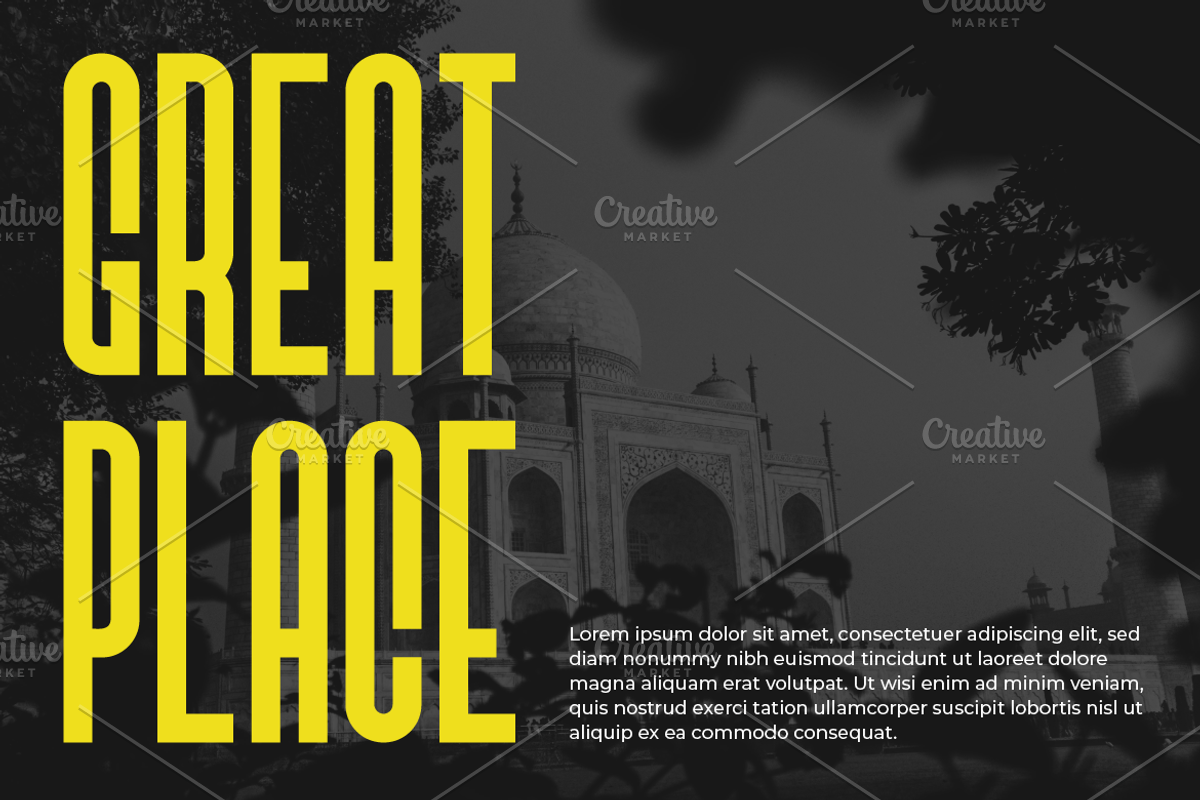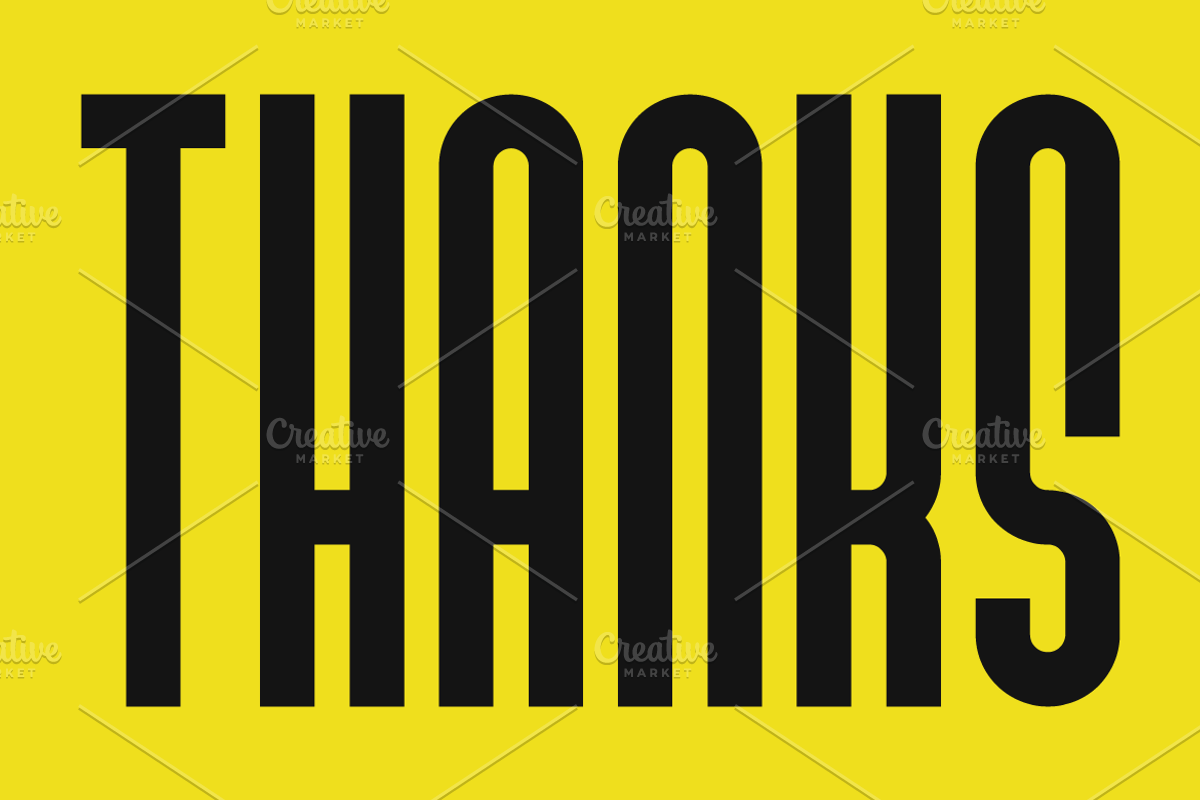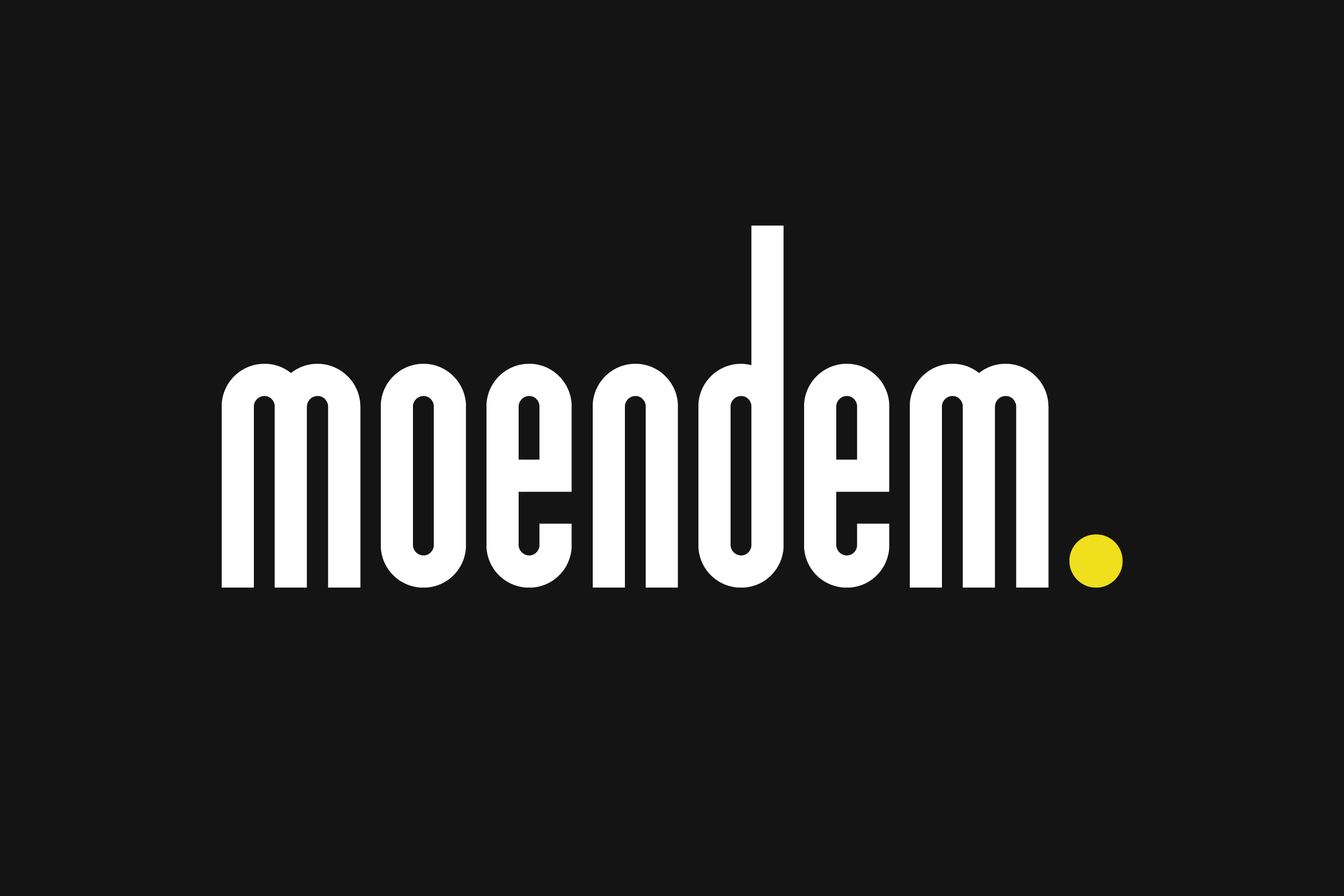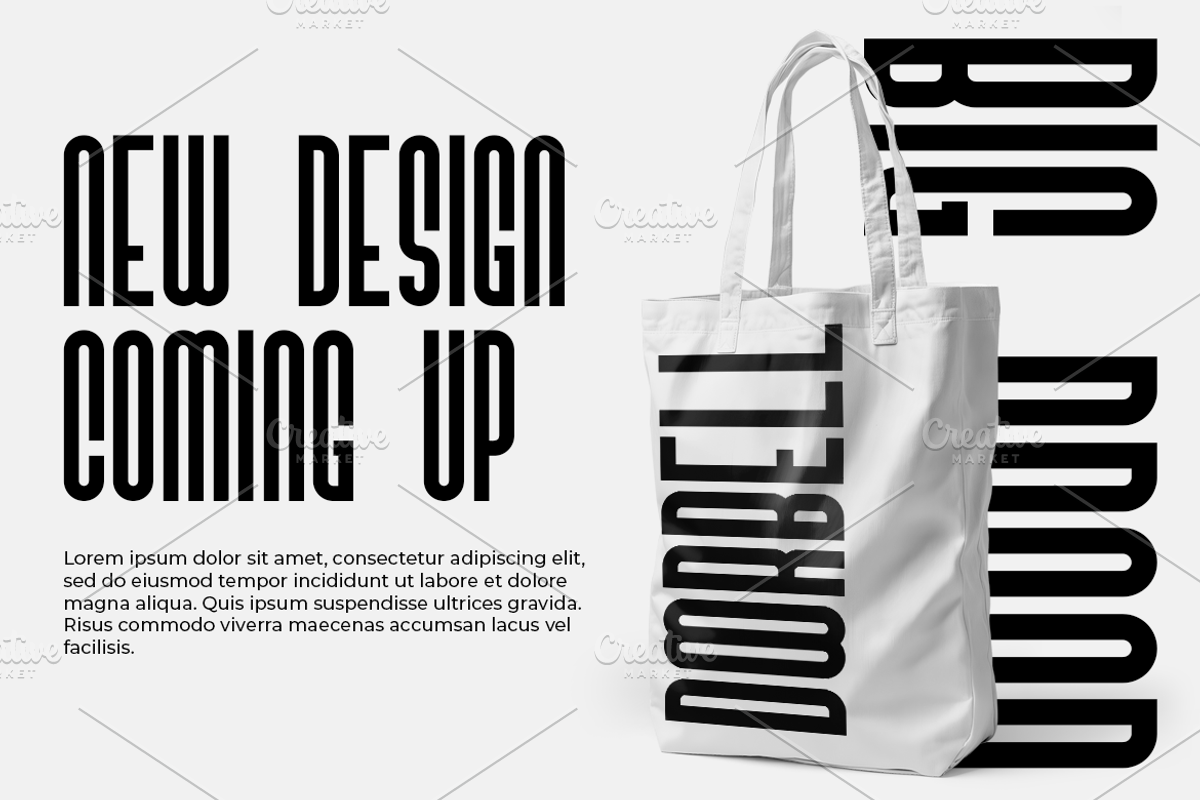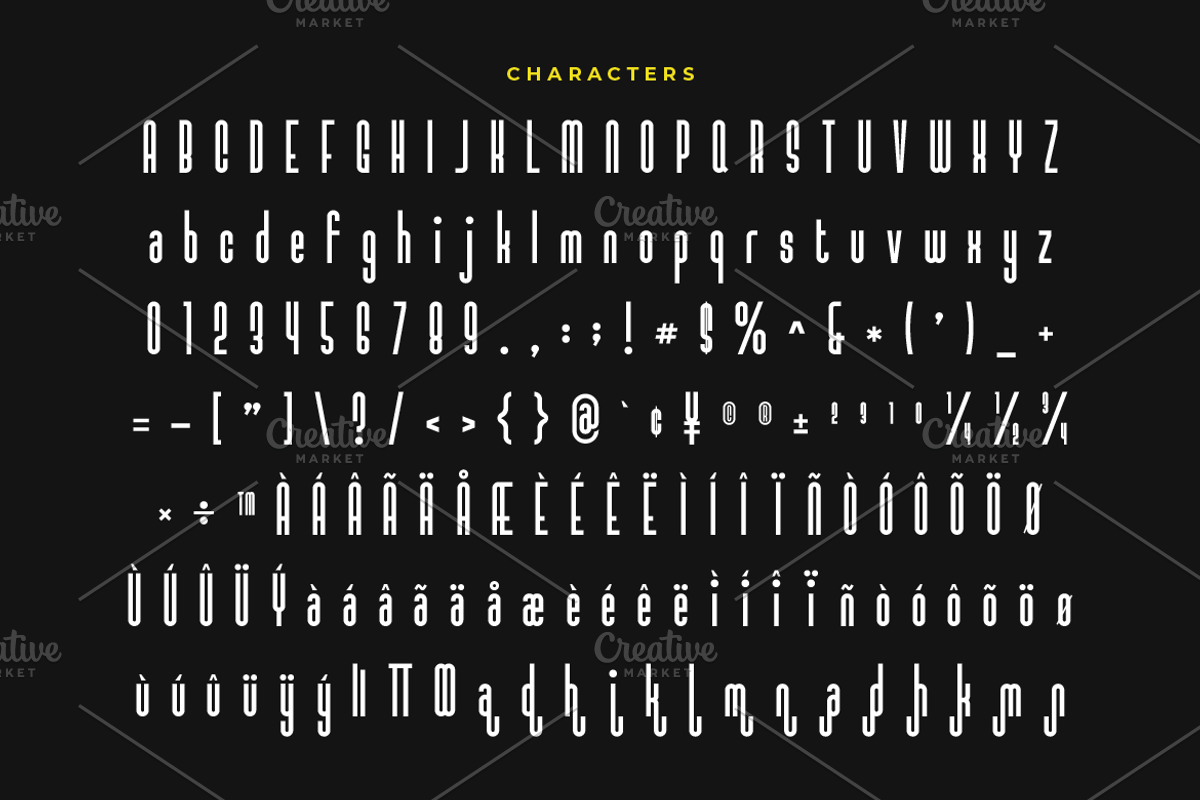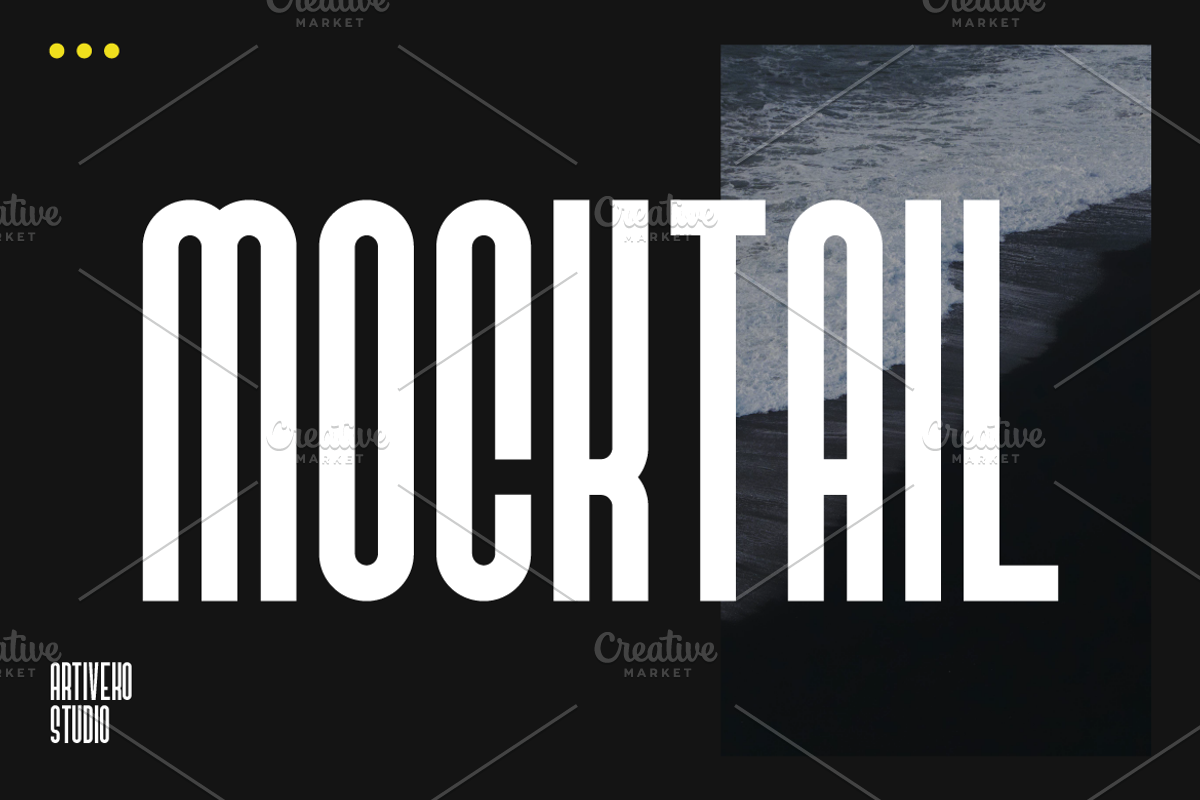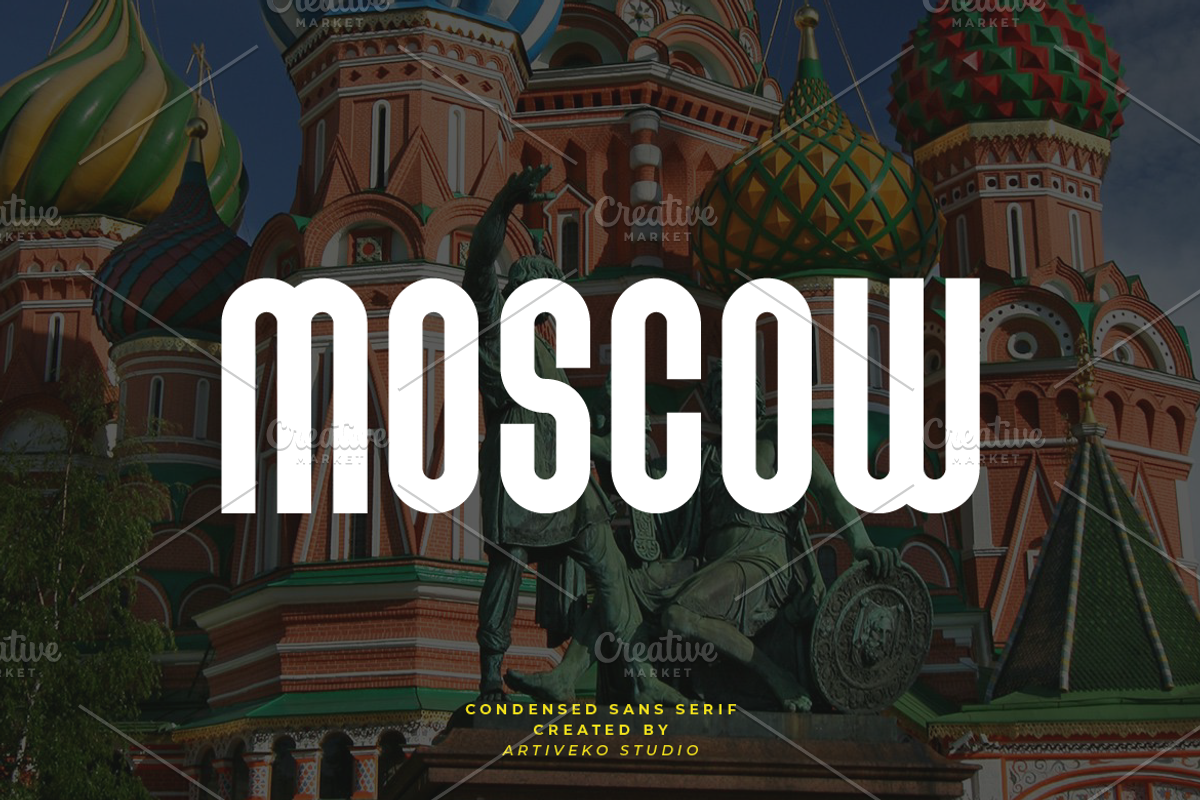
Moendem Condensed Sans Font
Moendem is a modern condensed sans serif font by Iwan Alwan, characterized by its slim, clean letterforms that provide a sleek and space-efficient design. Perfect for headlines, logos, posters, and branding, Moendem offers a minimalist yet bold aesthetic that stands out in any layout. With multilingual support, ligatures, and alternates, Moendem ensures versatility while maintaining a sharp, contemporary look, making it ideal for projects that need both elegance and clarity in a compact form.